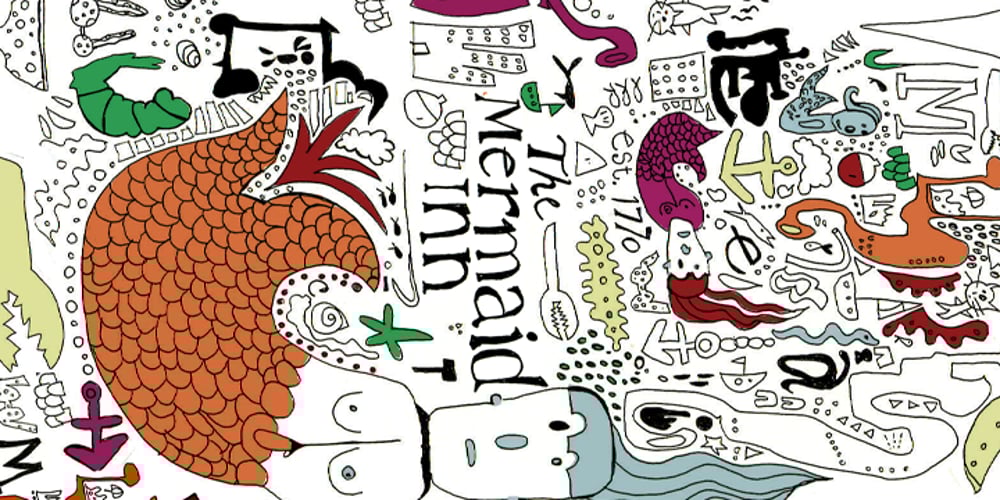
Mermaid NY Font Family was designed by Jennifer DeAngelis Gunn and published by DP Fonts. Mermaid NY contains 1 styles and family package options. MermaidNY font was created from an illustration I did in college for a NYC restaurant. The combination of sea and city come together and are represented with my illustrations of mermaids and urban buildings. This is a base font for what can be amazing invitations, textiles or anything you can imagine.